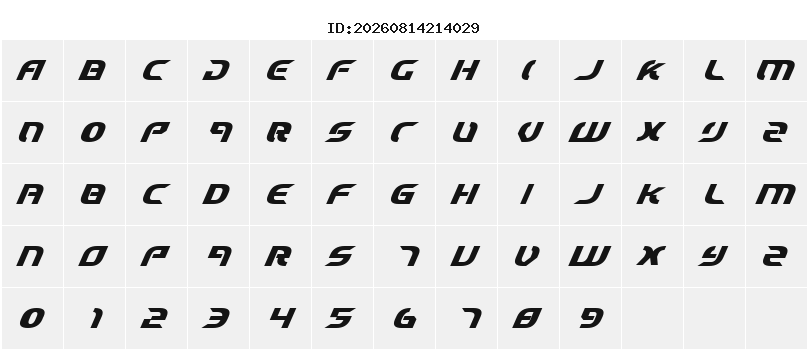
Starfighter Cadet Bold Italic Preview
• Font Name: Starfighter Cadet Bold Italic
• Font ID: Starfighter Cadet Bold Italic
• Full Font Name: Starfighter Cadet Bold Italic
• PostScript Name: StarfighterCadetBoldItalic
About Starfighter Cadet Bold Italic.ttf
Starfighter Cadet Bold Italic.ttf is a modern, elegant sans-serif font designed for ultimate readability and visual harmony. Perfect for branding, headlines, web design, and print materials.